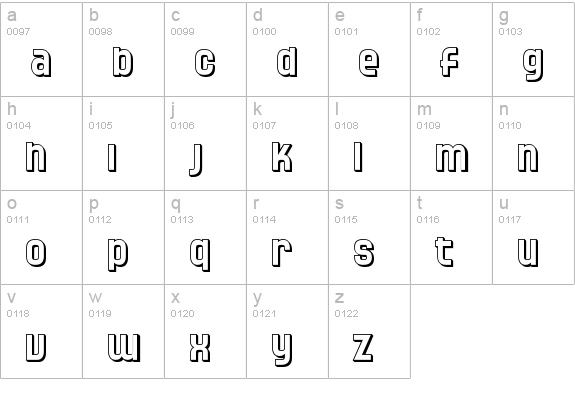
SF Speedwaystar Shaded Font Details
Introducing SF Speedwaystar Shaded, a captivating and dynamic font that is sure to make a bold statement in any design project. This futuristic typeface combines sleek lines and sharp edges to create a visually striking appearance that captures the essence of speed and movement. With its unique shading effect, SF Speedwaystar Shaded adds depth and dimension, making each letter seem to come to life on the page. Whether used for headlines, logos, posters, or any other design application, this font is sure to grab attention and leave a lasting impression. The best part? SF Speedwaystar Shaded is available for free download at FontsMarket.com. This means that designers, creatives, and enthusiasts alike can easily access this stunning font without breaking the bank. So why wait? Enhance your designs with the power of SF Speedwaystar Shaded and take your projects to new heights. Embrace the future of typography and unleash your creativity with SF Speedwaystar Shaded. Download it now for free at FontsMarket.com and experience the thrill of this remarkable font for yourself.